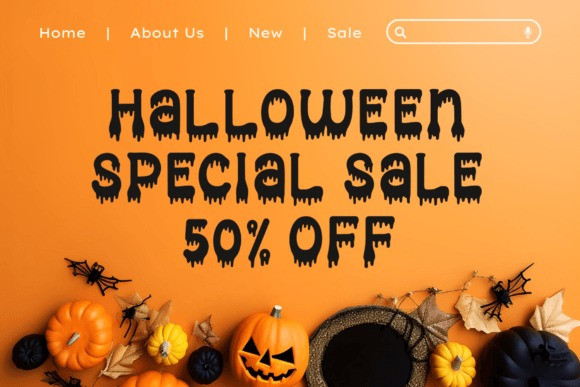
October Nightmare Font
October Nightmare Font – an enchanting yet spooky display font, brewed to perfection, capturing the essence of all things haunted. Breathe life into your Halloween-inspired creations, from spine-chilling posters to uncanny apparel and bewitching embroidery crafts, with this arresting font that’s expertly crafted for a supernatural touch in all your festive applications. Make every letter tell a ghost story with the October Nightmare Font.